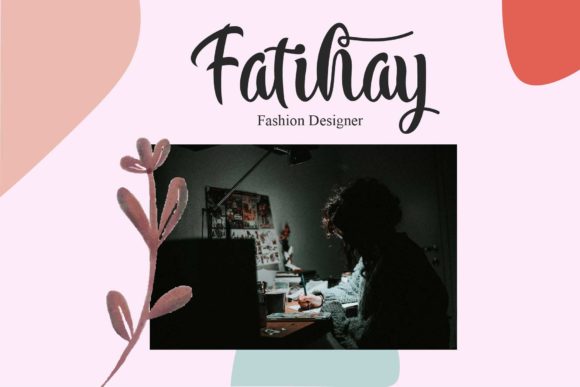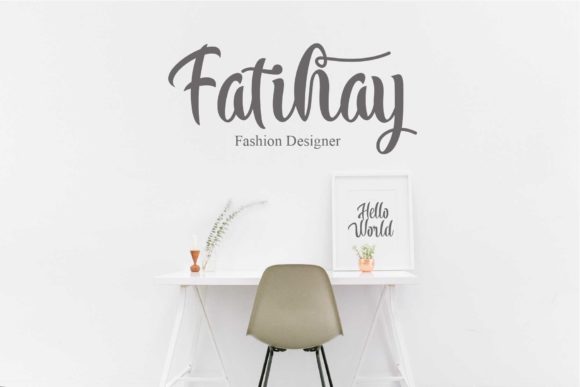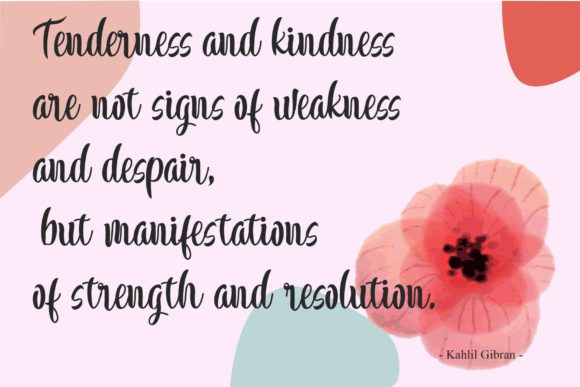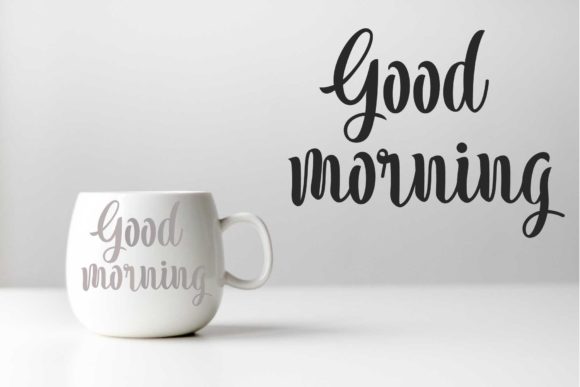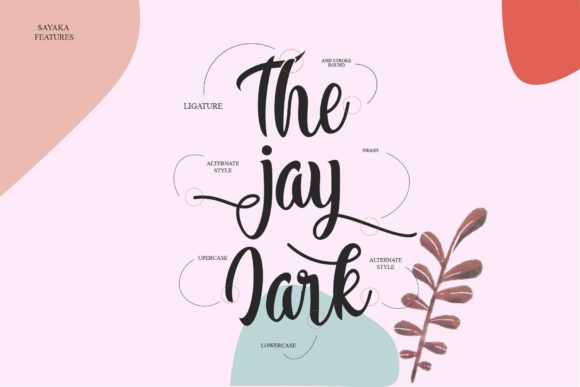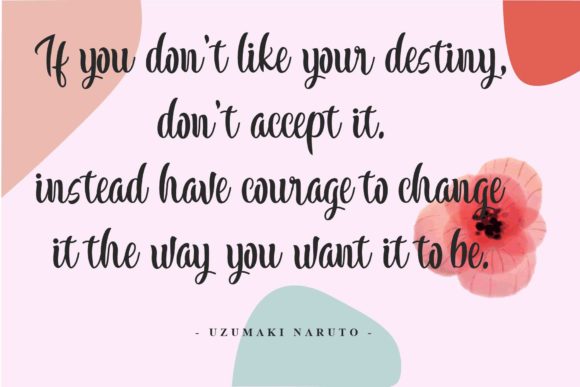
Introduction to Sayaka Font
Sayaka is an elegant and flowing handwriting font.
It is defined by smooth curves and is perfect for fashion branding or editorial designs Add it confidently to your projects, and you will love the results.
Key Features of Sayaka Font